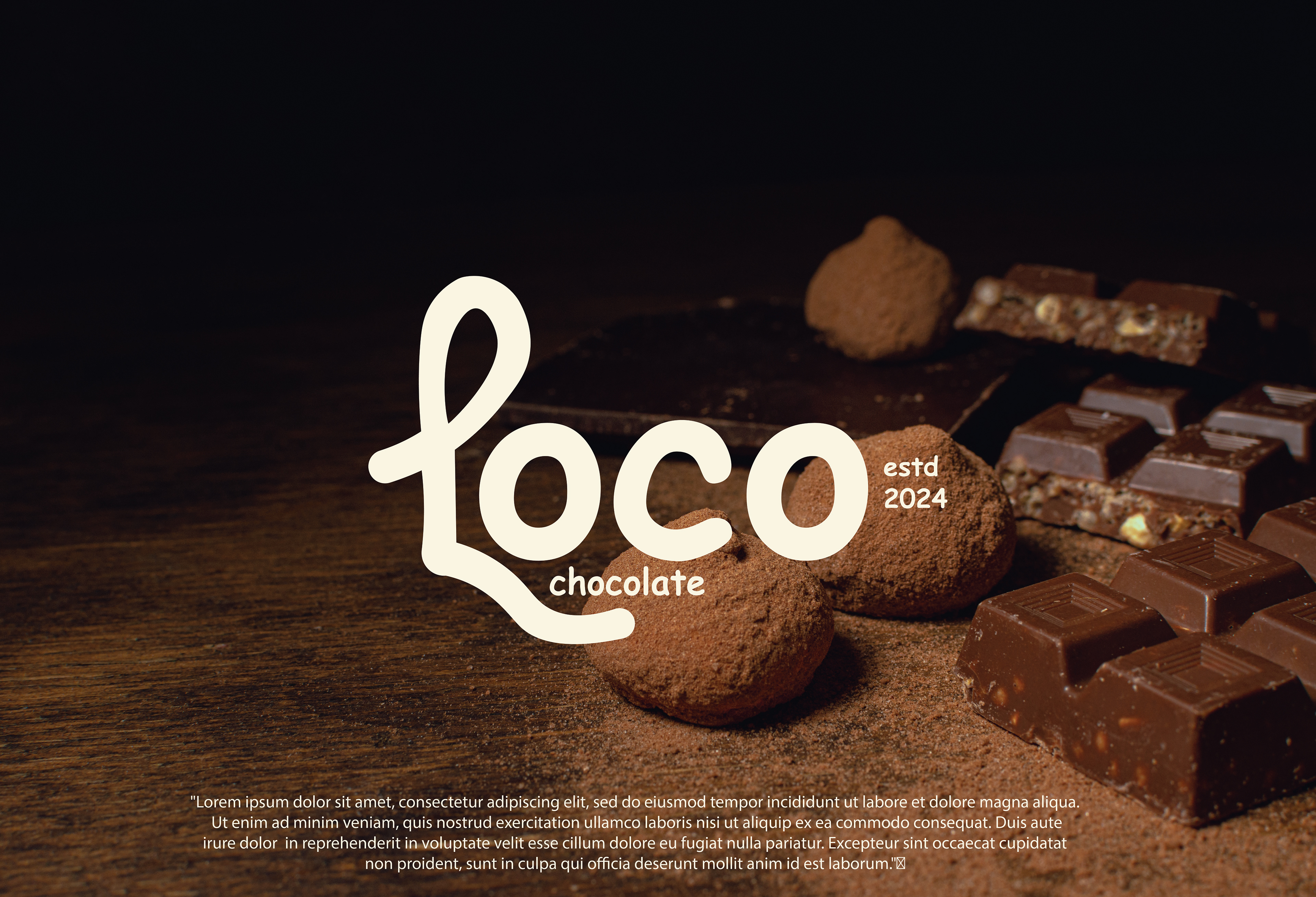
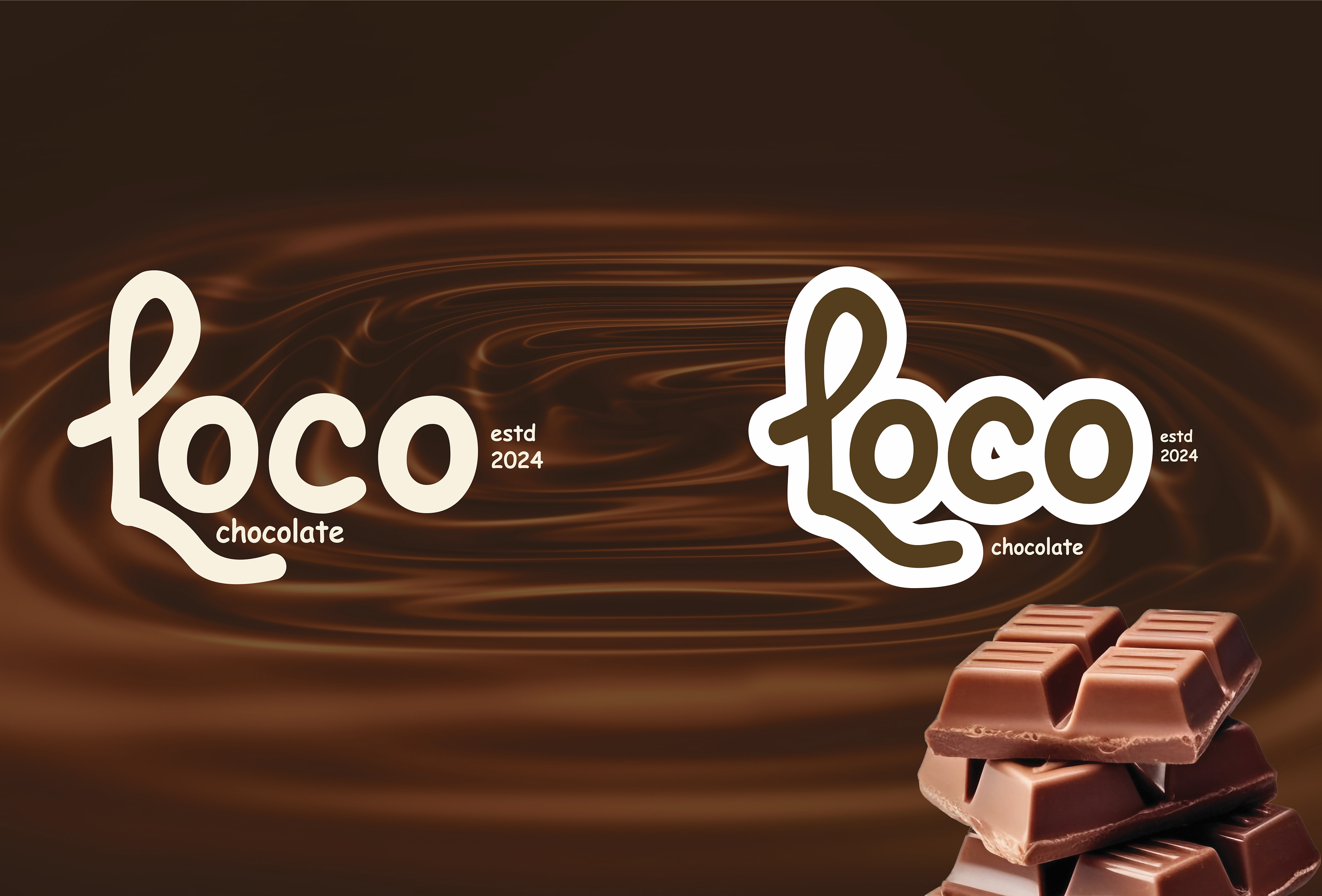
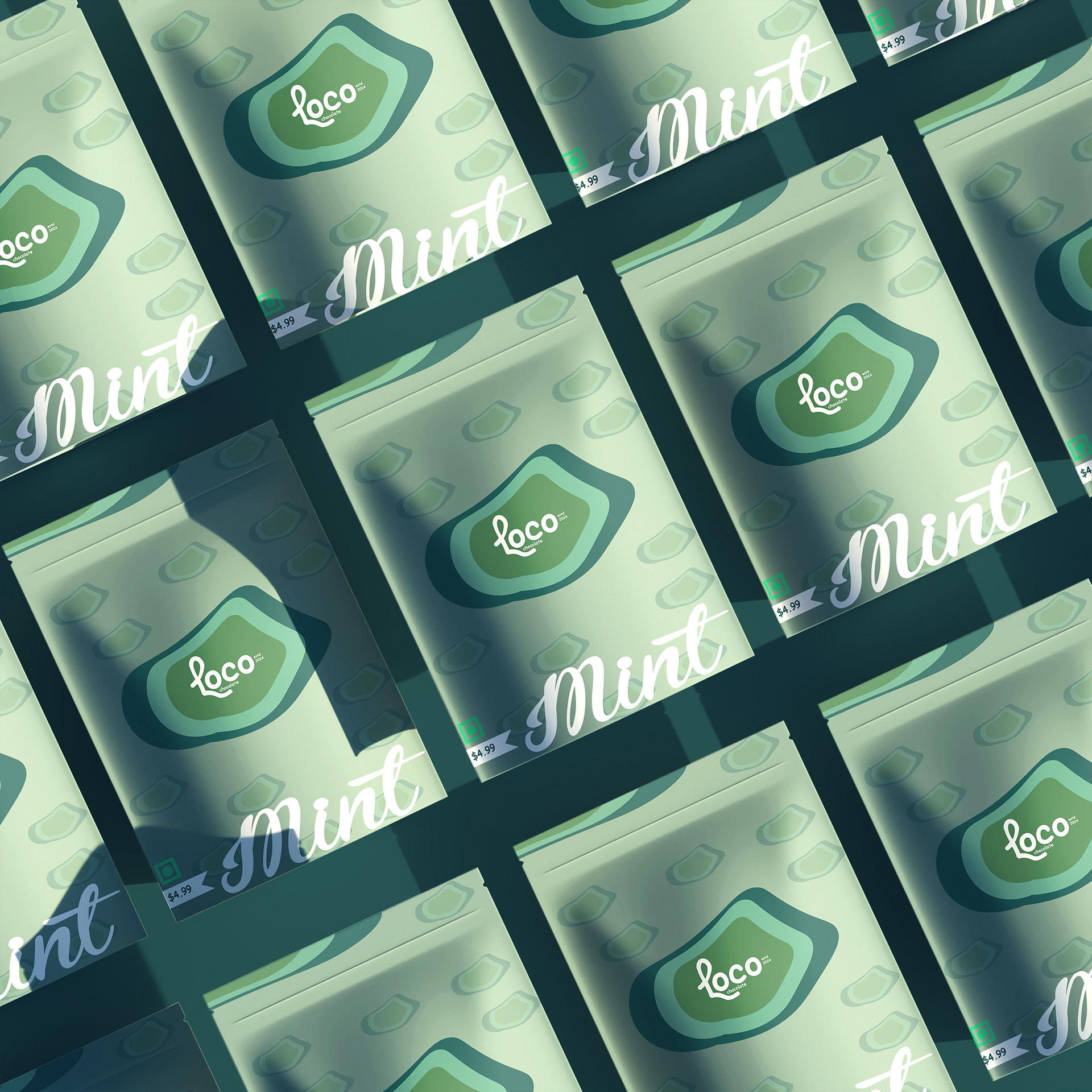
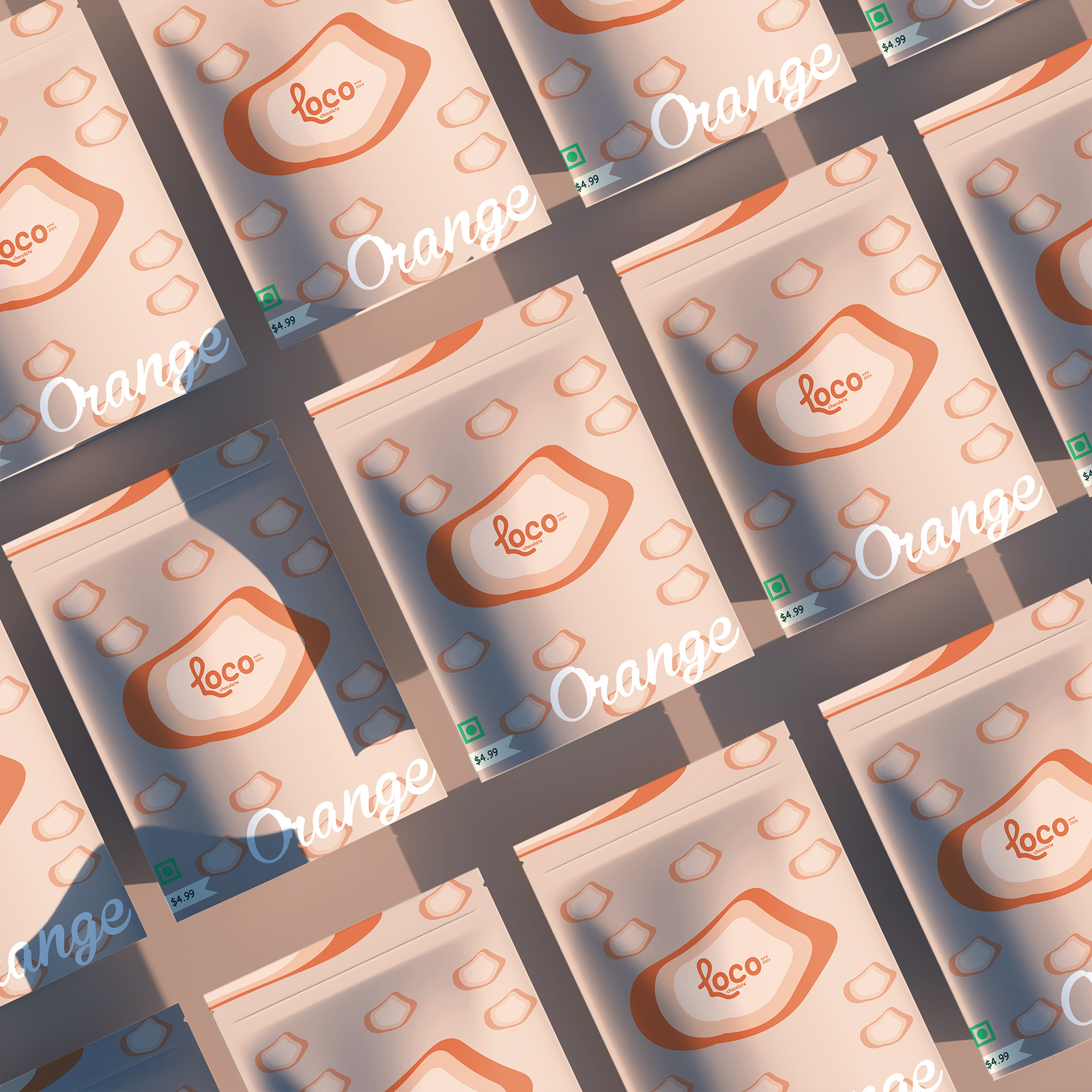
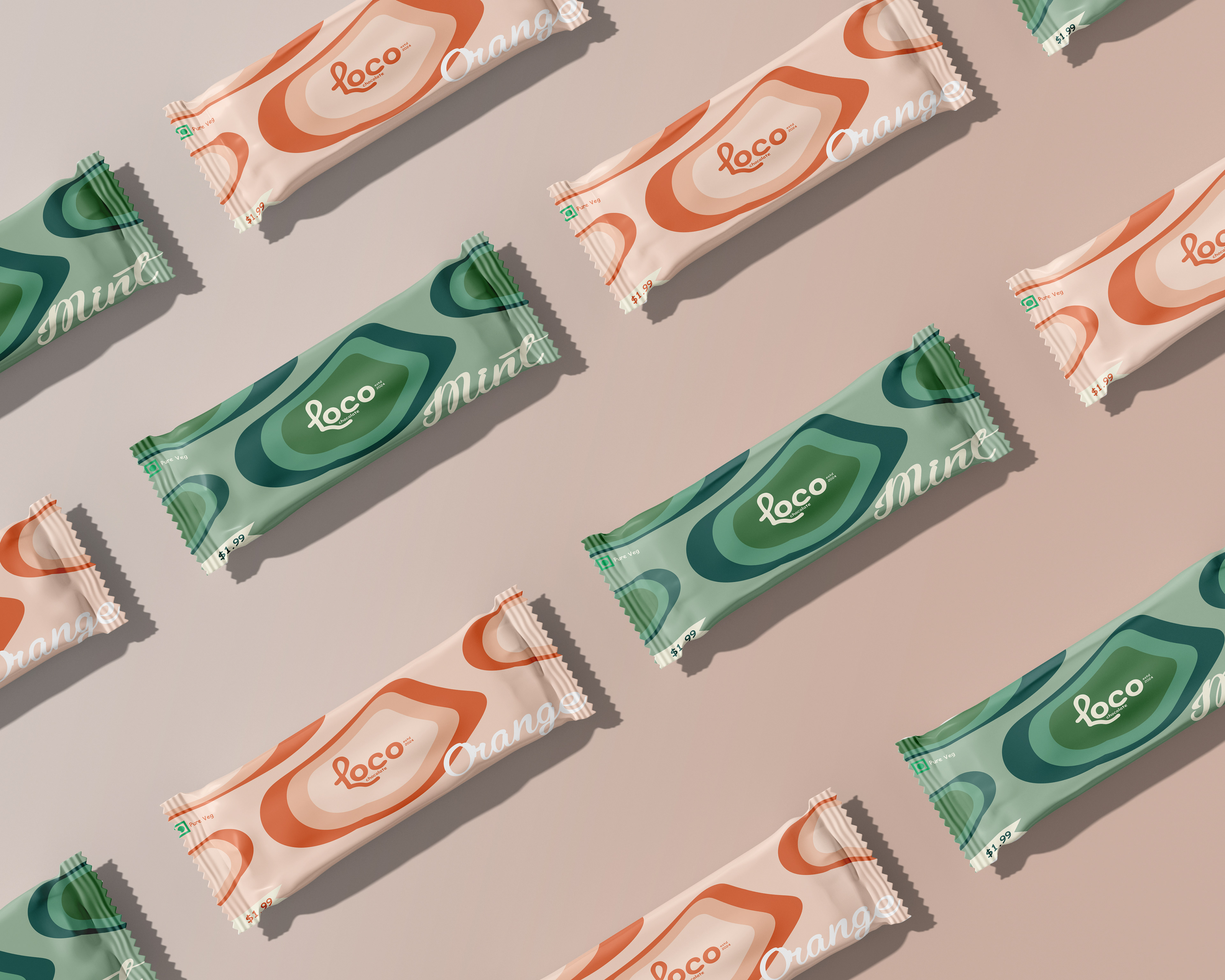
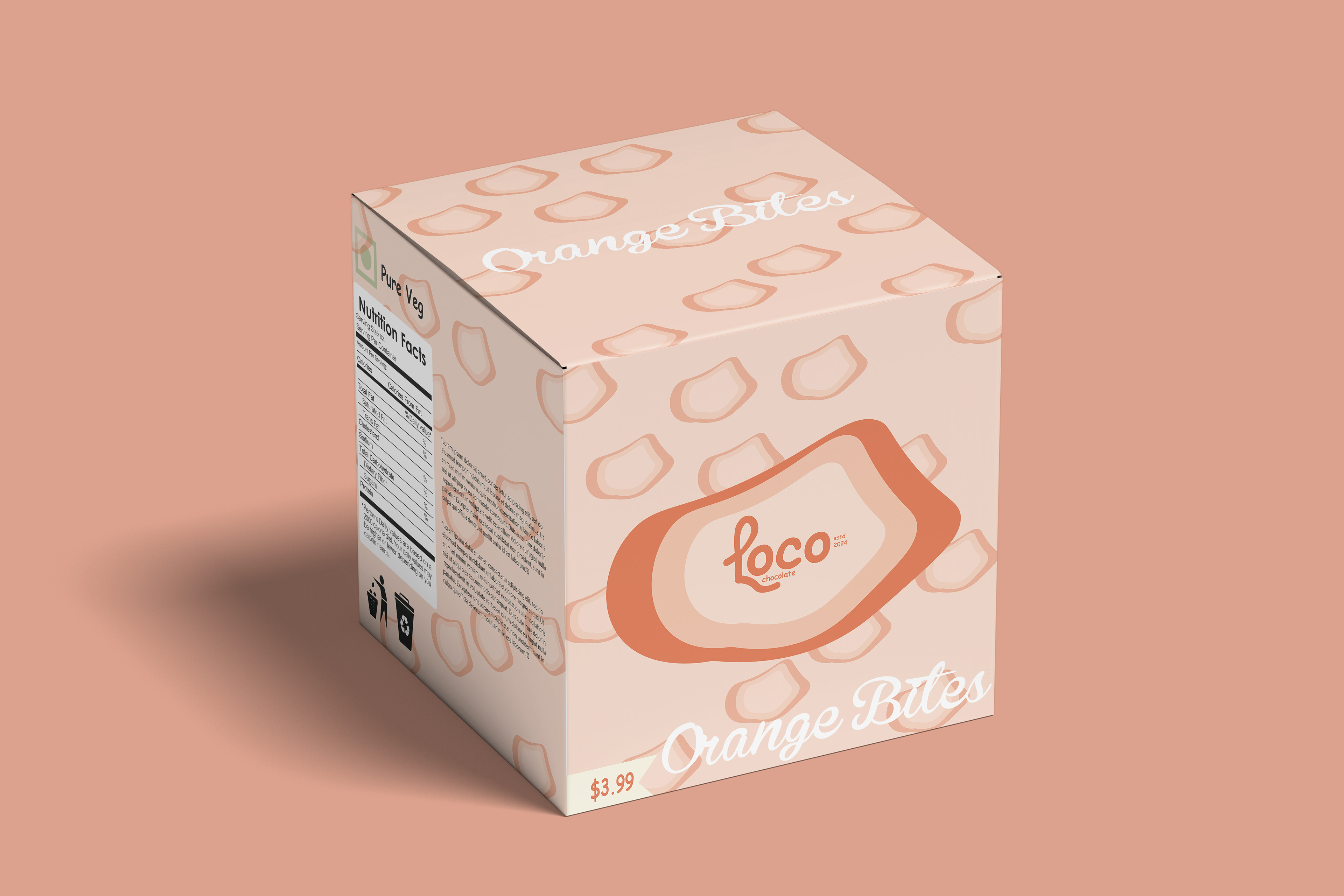
LOCO Chocolate brand identity
🌟 Custom Logo: The logo is cute and placed right on the centre of pouch packaging and the overall outcome gives the brand a childish appeal which is appealing to the Gen Alpha who are the targeted consumers.
🌟Packaging Design: Let's blow up our packaging line, with flavourful and tasty chocolate bites.